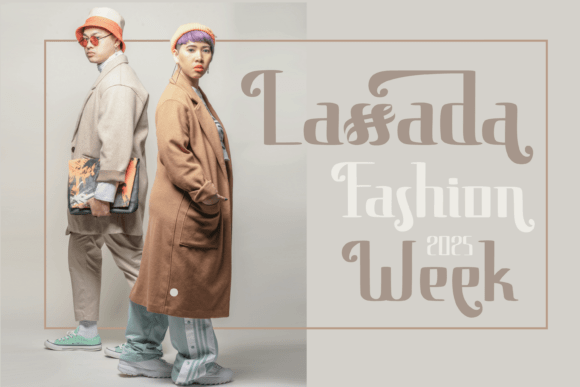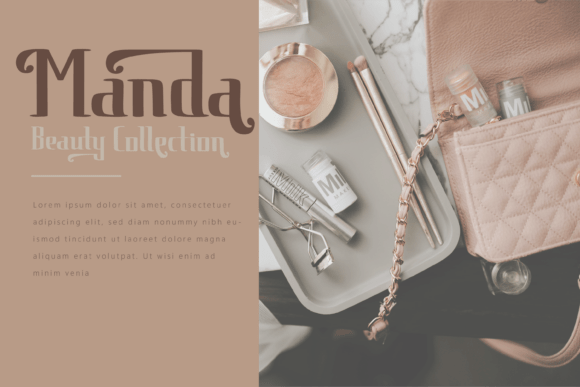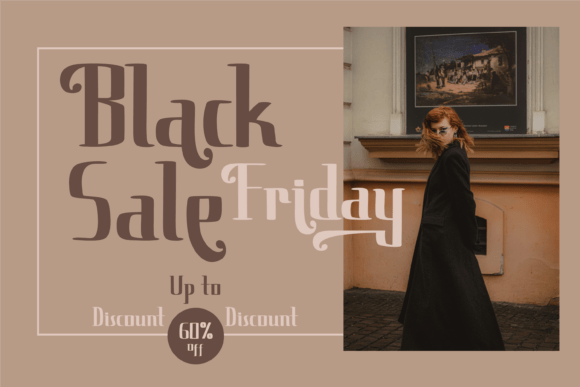
Introduction to Russtan Font
Immerse yourself in the delightful charm of Rusttan, a font with an ageless serif style magically intertwined with a contemporary edge.
The ripened sophistication of the vintage silhouette marries effortlessly with the crisp modern flair, creating an elegant typographic experience Find the perfect expression for a diverse array of needs, whether it’s turning the fabric of your clothing line into a canvas of chic statements or lending a signature style to your everyday essentials.
Key Features of Russtan Font
Why Choose Russtan Font?